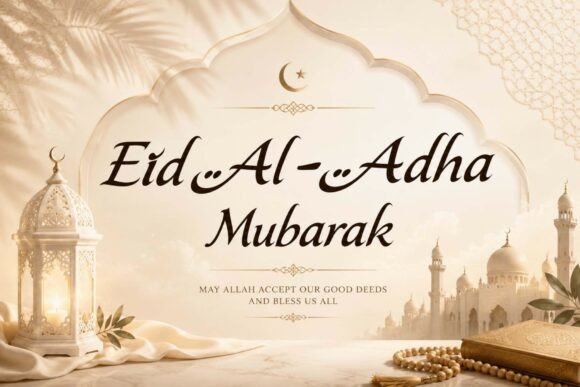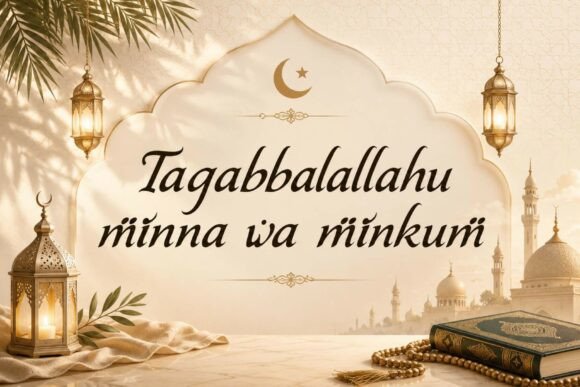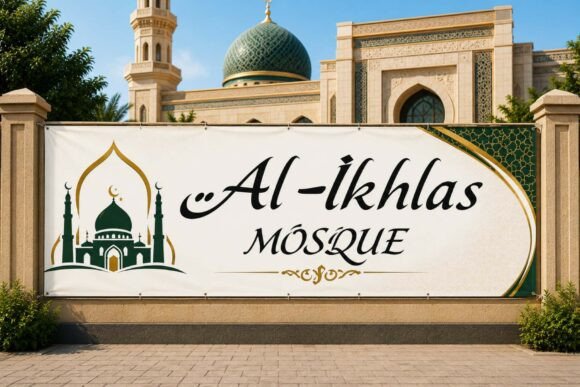
Introduction to Qasrina Arabic Font
As a designer, there’s nothing quite like the thrill of finding the perfect font to bring a project to life. It’s that moment when everything clicks into place, and you know you’ve got something special. For me, that moment came when I discovered the Qasrina Arabic Font. Its elegant, unique design and high-quality features made it an instant favorite.
Whether you’re working on a creative project that requires a touch of Arabic flair or simply want to add some cultural depth to your design, the Qasrina Arabic Font is a valuable resource. With its free download and transparent background, you can easily integrate it into your design without any hassle. Plus, its multilingual support makes it a versatile design resource that’s perfect for a wide range of applications.
From Eid al-Adha and Eid al-Fitr greetings to branding and logos, the Qasrina Arabic Font is a must-have for any designer looking to elevate their work with a touch of sophistication and elegance.
Key Features of Qasrina Arabic Font
- High-quality design: Qasrina Arabic Font is a well-crafted, professional font ideal for creative projects requiring a sophisticated look.
- Transparent background: Qasrina Arabic Font has a transparent background, making it easy to use in designs with complex backgrounds.
- Large character set: Qasrina Arabic Font includes a comprehensive character set, covering a wide range of Arabic characters and diacritical marks.
- High-resolution support: The font is designed to work at high resolutions, ensuring crisp and clear text in both print and digital designs.
- Perfect for creative projects: Qasrina Arabic Font is an excellent choice for designers working on creative projects, including branding, advertising, and editorial content.
Honest Review: Qasrina Arabic Font
I recently had the chance to experiment with the Qasrina Arabic Font for a creative project, and I must say, I was pleasantly surprised. The font is a high-quality, elegant script that adds a touch of sophistication to any design.
One of the things that works well with this font is its versatility. It’s perfect for a wide range of creative projects, from logo design to print materials. The font also has a beautiful, transparent background, which makes it easy to pair with other design elements.
- High-quality, elegant script design
- Transparent background for easy pairing
- Perfect for logo design, print materials, and more
That being said, I do have a few limitations to mention ⚠️. The font may not be ideal for very small text sizes, as the script can become difficult to read. Additionally, the font is only available in a single weight, which may limit its use in certain design applications.
Overall, I’m impressed with the Qasrina Arabic Font. It’s a great addition to any designer’s toolkit, and I highly recommend it for any creative project ✨.
For a high-quality design, use Qasrina Arabic Font in combination with other design resources, such as images and graphics. Experiment with different font sizes, colors, and styles to create a unique and creative look. You can also use the font on a transparent background to create a clean and modern design.
The Qasrina Arabic Font is a versatile design resource that can be used for a variety of creative projects, including business cards, brochures, and social media graphics. It’s also a great option for those looking for a free download with a high-quality, professional look.